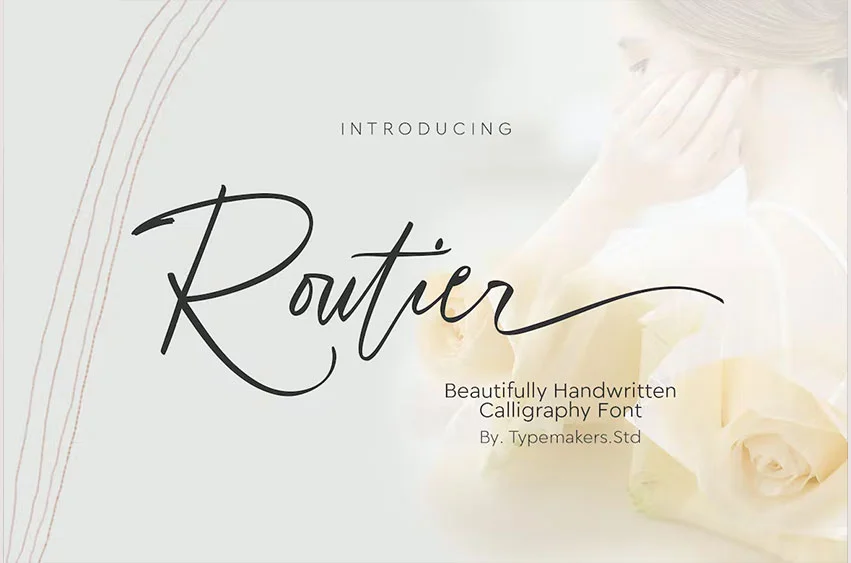
Routier Font is a natural handwritten font, this font Is perfect for logos, invitations, stationery, wedding designs, social media posts, advertisements, product packaging, product designs, label, photography, watermark, special events, or anything.
Routier Script comes with a full set of uppercase and lowercase letters, combined with 160 Standards Ligatures, Stylistic Alternates, and Stylistic Set which is elegant and beautiful, Lowercase & Uppercase Alternates, Multilingual Symbols, Numerals, Punctuation.